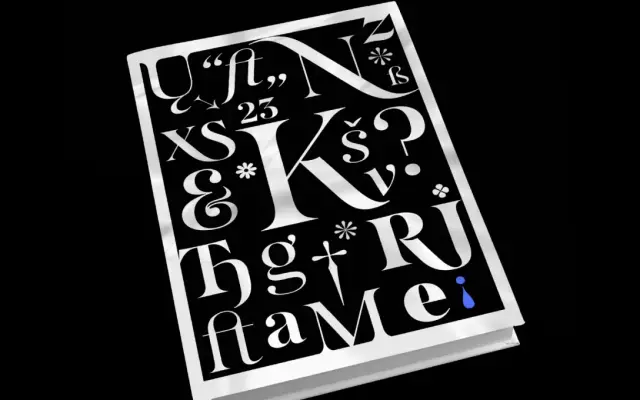
Salina
Fontfabric · Ivelina Martinova, Plamen Motev, Viktoria Usmanova · 2023
A high-contrast transitional serif from Fontfabric, available in 32 static styles across two sub-families with swash alternates and variable font support.
Designed by Ivelina Martinova with creative direction from Plamen Motev and Viktoria Usmanova, Salina pairs dramatic stroke contrast and sharp bracketed serifs with round ball terminals and graceful ovals across seven weights. A dedicated Swashes sub-family adds ornate alternate characters for invitations, luxury branding and fashion applications. Variable font files cover both roman and italic axes, and OpenType features include small caps, old-style figures, contextual swashes and multiple stylistic sets.
High contrast between thick and thin strokes with sharp bracketed serifs and ball terminals places Salina firmly in the transitional serif tradition, with a contemporary lean toward display and editorial use.